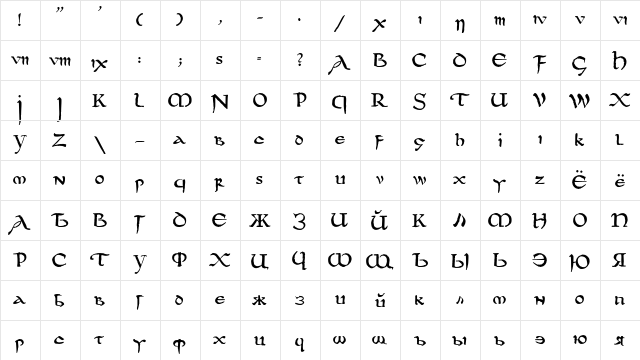
DS UncialFunnyHand Medium
| Designer | Dubina Nikolay |
Design Context for DS UncialFunnyHand Typeface
DS UncialFunnyHand has an approachable, lighthearted character — its loose, expressive forms are well-suited to children's content, casual branding, and fun-first design.
Well-suited to food and beverage brands with personality, educational materials, and fun-forward identities.
Font Pairing: Pairs well with a rounded or humanist sans for body copy, maintaining the friendly tone without relying on DS UncialFunnyHand to carry extended reading.
Pro Tip: Use DS UncialFunnyHand at larger display sizes where its expressive character can land. Pair with a clean, simple sans for body copy to maintain readability.